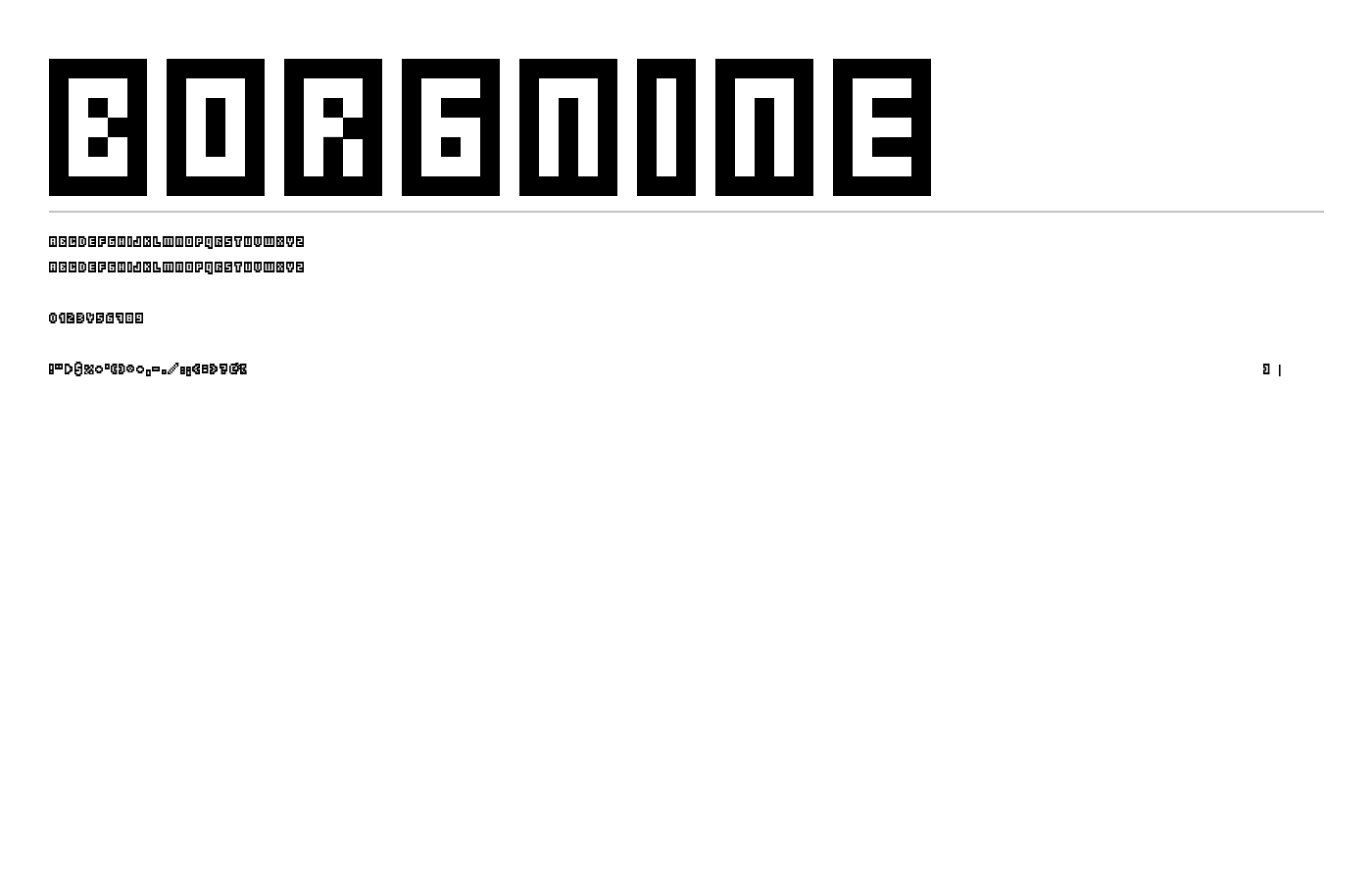
Borgnine is a bold, geometric sans serif font characterized by its blocky, modular letterforms and uniform stroke weight, giving it a strong and structured appearance. Its high x-height and pixelated style evoke a retro, digital feel, making it ideal for tech-inspired designs, video game graphics, or modern branding seeking a distinctive, futuristic edge. This font works well in headlines and logos where its unique, eye-catching shapes can stand out.
Borgnine Font
About Borgnine Font
| Font family | Borgnine Font |
| Designer | Marc André "Mieps" Misman |